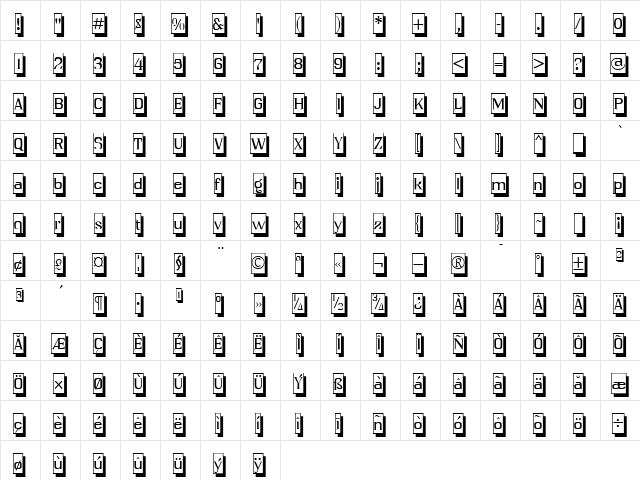
QwatickPlacard Regular
Design Context for QwatickPlacard Typeface
QwatickPlacard is a composed and adaptable typeface that performs quietly and consistently across a wide range of design contexts.